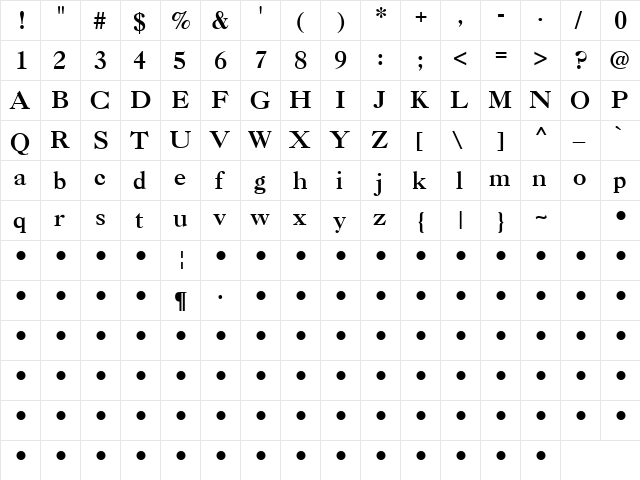
QTCaslan Bold
Design Context for QTCaslan Typeface
QTCaslan offers clean, dependable letterforms without strong stylistic allegiance, making it a practical choice for designers who need flexibility. The heavy weight commands attention and anchors typographic hierarchies.
Pro Tip: Use QTCaslan in both headline and body roles to test its range before committing to a single application.